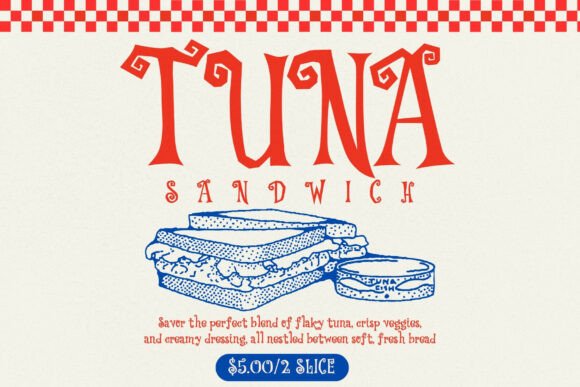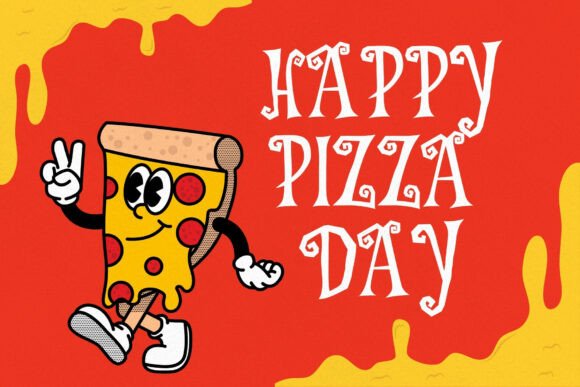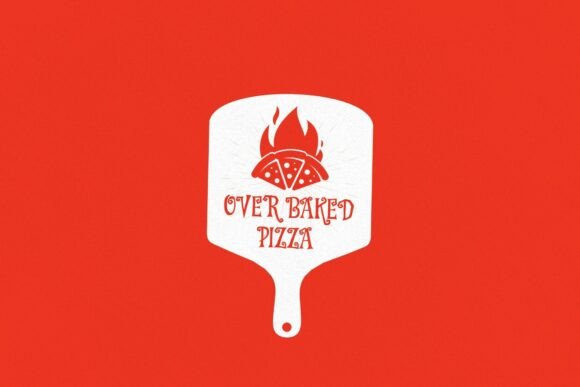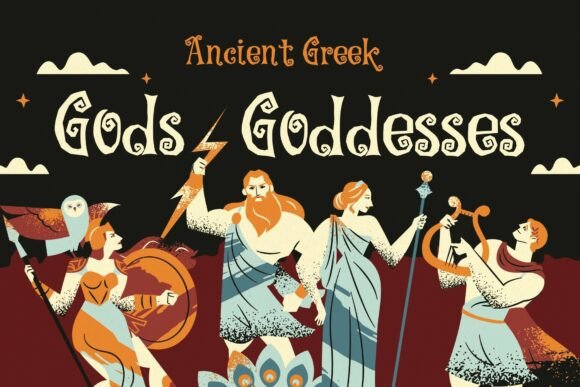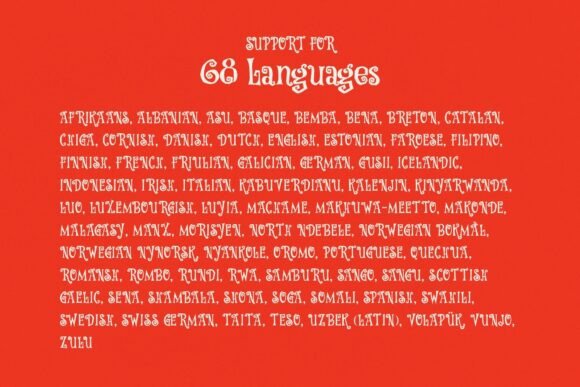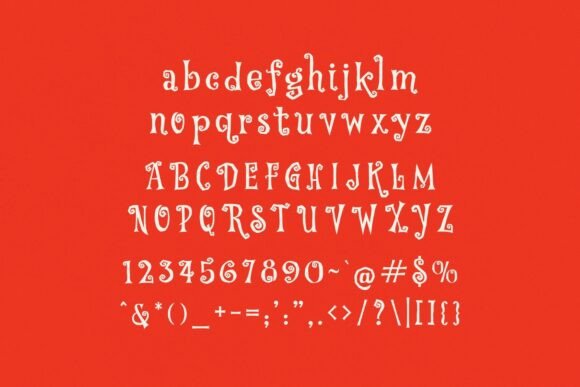
Introduction to Rest in Pizza Font
You’ve probably been there – stuck on a design project, staring at a blank canvas, and desperately seeking the perfect font to bring your creative vision to life. It’s those moments of frustration that make the discovery of a unique, high-quality font all the more exhilarating. For designers who crave something extraordinary, Rest in Pizza Font is a game-changer. This one-of-a-kind, ancient Greek-inspired typeface blends spooky charm with playful character, making it an unforgettable choice for designers who love the strange and unexpected.
With 232 unique glyphs and support for 68 languages, Rest in Pizza Font gives you the creative freedom to craft hauntingly fun titles, menus, posters, and brand visuals that stand out from the crowd. Whether you’re designing a haunted house brochure or a quirky restaurant menu, this typeface adds a playful sense of the supernatural while still feeling cohesive and stylish.
- Unique and playful design perfect for creative projects, such as logo designs, t-shirt designs, and more.
- Includes a comprehensive character set, covering a wide range of languages and special characters.
- Perfect for designers looking for a fun and quirky font to add a personal touch to their projects.
Honest Review: Rest in Pizza Font
As a designer, I’m always on the lookout for unique and quirky fonts to spice up my creative projects. Rest in Pizza Font caught my eye with its playful and nostalgic vibe, and I was eager to give it a try.
Here are some things that I think work well in this font:
- ✨ Unique and quirky design: Rest in Pizza Font has a distinct personality that’s perfect for adding some whimsy to your design.
- ✨ High-quality images: The font comes with high-quality images of pizzas, which adds a nice touch to the overall design.
- ⚠️ Limited character set: The font only includes a limited set of characters, which may not be suitable for complex design projects.
- ⚠️ Transparent background: While the transparent background is a nice touch, it can be a bit tricky to work with, especially if you’re not familiar with layering and masking.
Overall, I think Rest in Pizza Font is a great design resource for anyone looking to add a playful touch to their creative projects. While it may have a few limitations, the unique design and high-quality images make it a worthwhile download.
Rest in Pizza Font
Rest in Pizza Font is a unique design resource perfect for adding a touch of whimsy to your creative projects. This high-quality font features a transparent background, making it easy to use in a variety of applications.
Rest in Pizza Font is perfect for use in a variety of creative projects, including but not limited to:
- Food blog design
- Restaurant branding
- Party invitations
- Graphic design projects